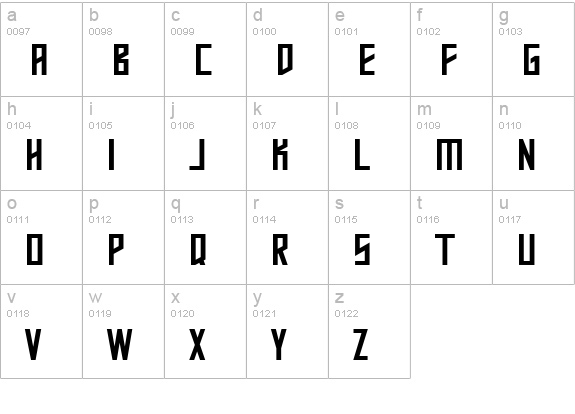
Mastodon Bold Font Details
Mastodon Bold is a strong, high-contrast variant in the Mastodon typeface family \xE2\x80\x94 well suited to headlines, attention-grabbing titles, and strong calls-to-action.
Introducing Mastodon Bold, an extraordinary typeface that exudes strength, confidence, and a touch of boldness. This font is a perfect blend of modernity and classic elegance, making it the ideal choice for projects that demand attention and a powerful visual impact. With its sleek and distinctive design, Mastodon Bold stands out from the crowd, capturing the essence of individuality and creativity. Every letter is meticulously crafted with precision and care, resulting in a font that is both visually stunning and highly legible. This versatile typeface is suitable for a wide range of applications, from branding and advertising to editorial design and web projects. Its strong presence and commanding presence on any medium will leave a lasting impression on your audience. But what makes Mastodon Bold even more appealing is that it is available for free! Yes, you read that right. You can freely download this extraordinary font at FontsMarket.com. We believe that everyone should have access to exceptional typography, and we are delighted to offer Mastodon Bold as a free resource for designers, creatives, and enthusiasts alike. So, why wait? Elevate your designs with the power of Mastodon Bold. Download it now and watch your projects come to life with a touch of boldness and elegance that only this font can provide. Experience the freedom of creativity with Mastodon Bold, exclusively at FontsMarket.com.